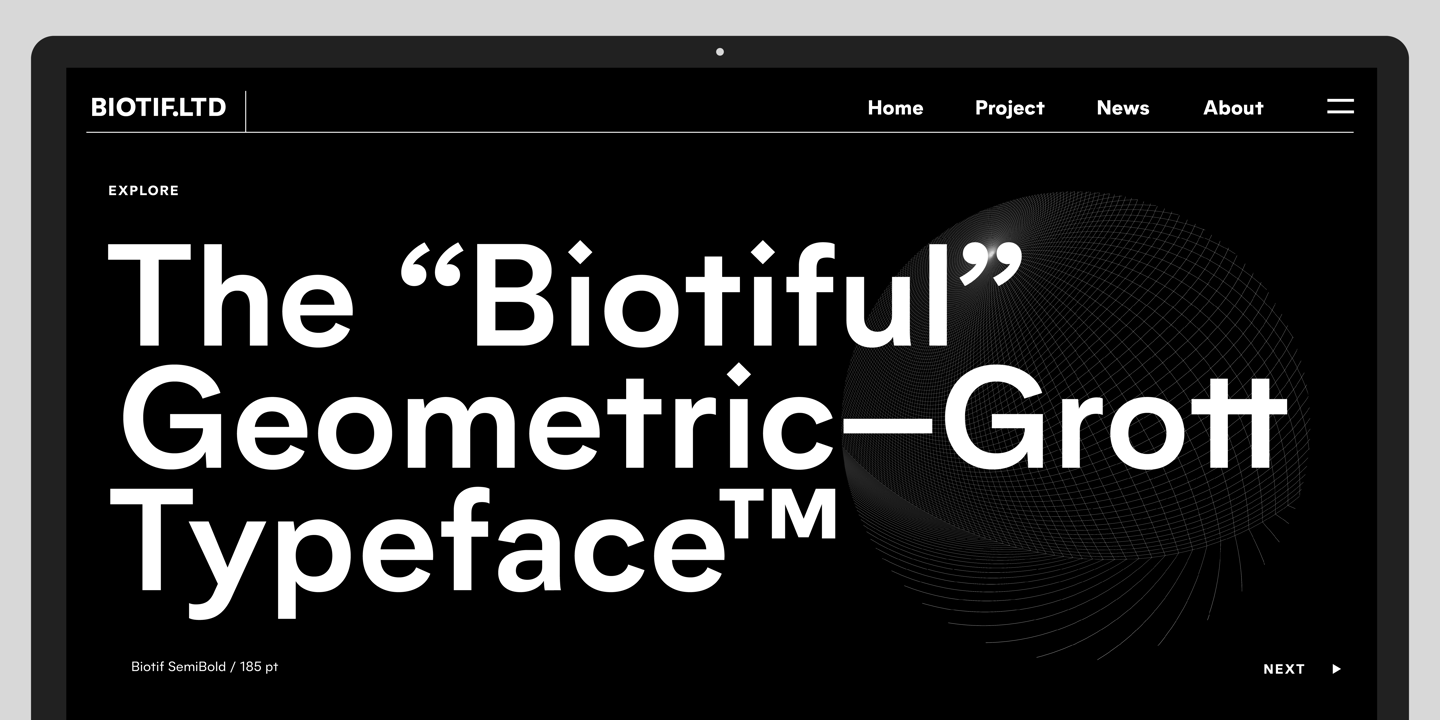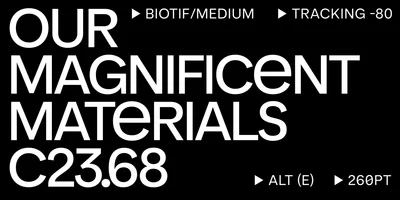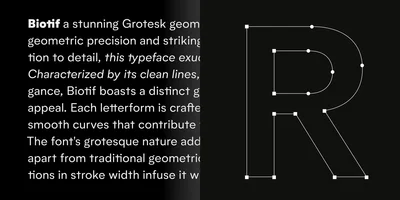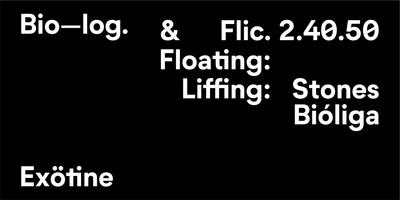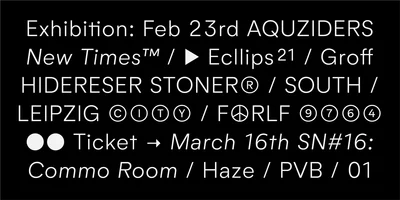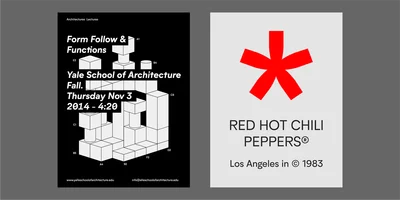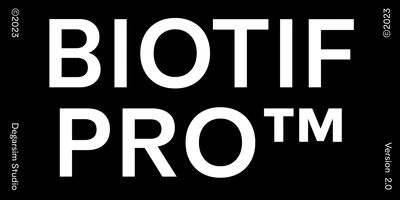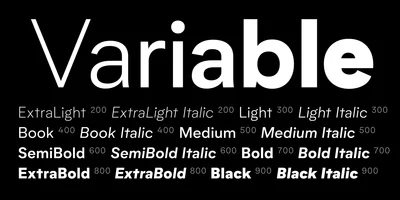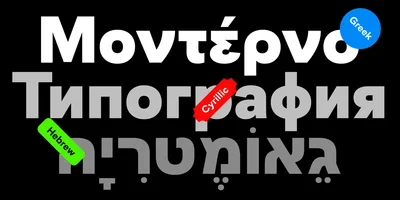
Biotif vs Circular
Biotif and Circular are both sans-serif typefaces sharing a geometric foundation. Where Biotif leans minimal, Circular brings warm, modern. Compare which suits your Apps project.
Design overlap:33%
| Feature | Biotif | Circular |
| Source | Degarism Studio | Lineto |
Recommended: Biotif
- minimal design character
- Suited for Ui
- From degarism-studio
Consider: Circular
- warm, modern design character
- Suited for Startups and Startup
- From lineto